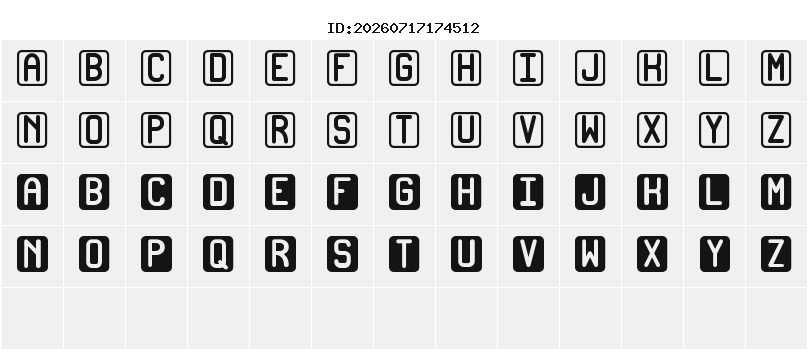
• Font Name: BiCoLoRs St
• Description: BiCoLoRs St | Southype 2014
About BiCoLoRs St.ttf
BiCoLoRs St.ttf is a modern, elegant sans-serif font designed for ultimate readability and visual harmony. Perfect for branding, headlines, web design, and print materials.